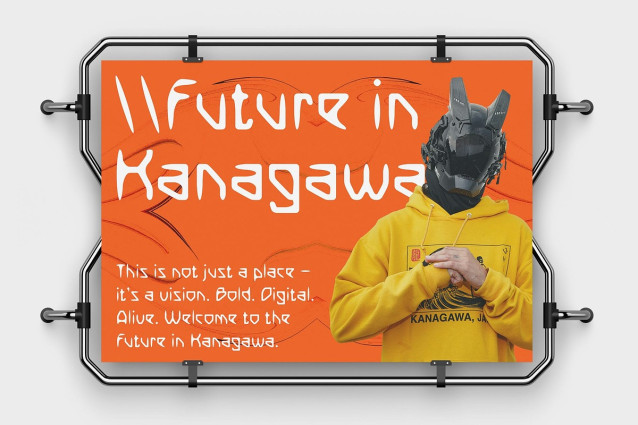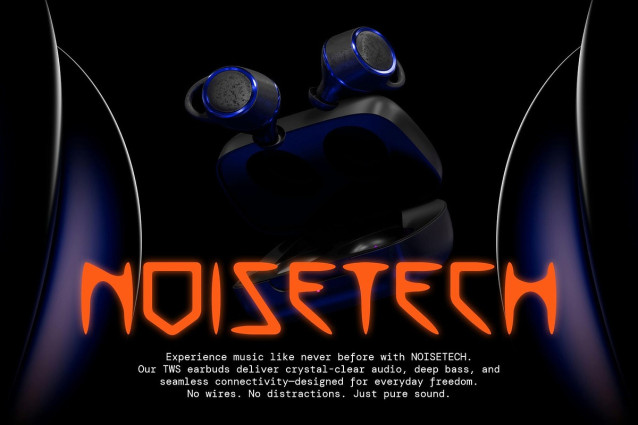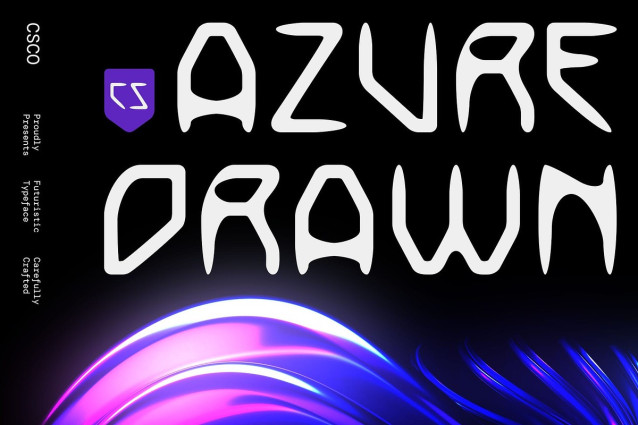
CS Azure Drawn Font
CS Azure Drawn Font is a modern display font that draws inspiration from futuristic and techno aesthetics. Its letterforms are constructed with bold geometric precision—featuring angular edges, straight strokes, and clean proportions that evoke a sense of innovation, speed, and modernity.
Drawn Effect Adds Organic Contrast What sets this contemporary font apart is its unique drawn effect. This handcrafted texture softens the otherwise digital and calculated shapes, adding depth and personality. The imperfect, sketched overlay introduces a raw, human touch that contrasts beautifully with the font’s technological structure.
Bold, Expressive, and Visually Striking This handcrafted font isn’t just a futuristic typeface—it’s a statement piece. Its bold forms and artistic texture create a powerful visual identity that’s perfect for headline typography, branding, posters, or album covers. It’s especially well-suited for projects that want to merge tech-savvy aesthetics with a creative, handmade flair.
Ideal for Sci-Fi, Music, and Creative Branding Perfect for sci-fi titles, electronic music visuals, modern branding, and experimental designs, this techno font brings a dynamic energy to any layout. It resonates with creatives who want to step outside the ordinary and build a visual world that’s innovative, edgy, and full of character.